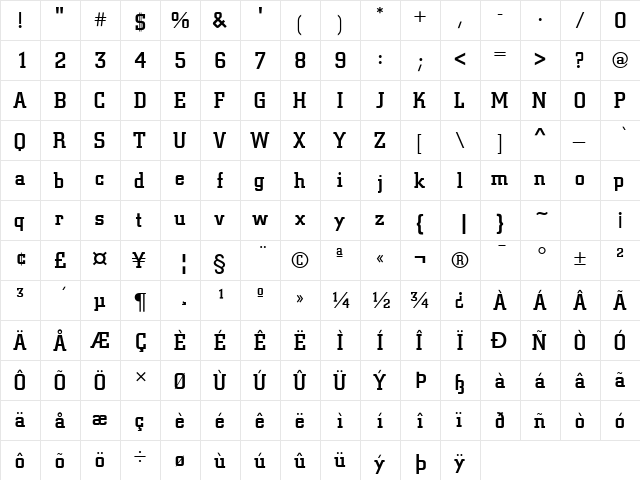
Village Square Regular
Design Context for Village Square Typeface
Village Square takes a measured approach to typography — its balanced proportions and neutral character make it a reliable workhorse for both digital and print work.